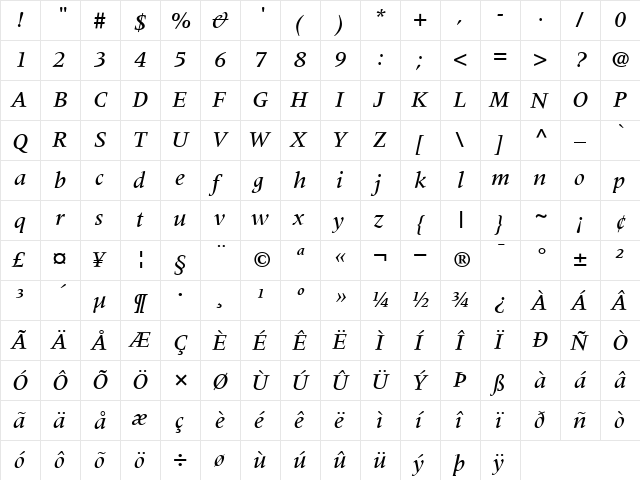
Meridien-Medium MediumItalic
Design Context for Meridien-Medium Typeface
Meridien-Medium is a composed and adaptable typeface that performs quietly and consistently across a wide range of design contexts. The slanted form adds forward momentum and visual energy.
Pro Tip: Use Meridien-Medium for emphasis, pull quotes, and subheadings where its slanted energy can add rhythm to the layout.